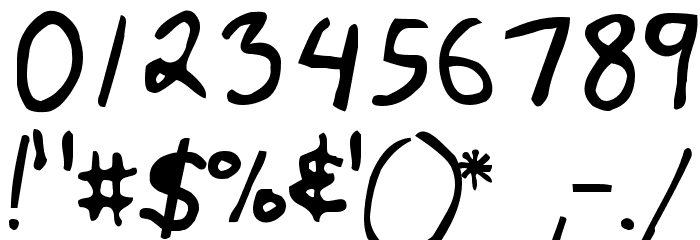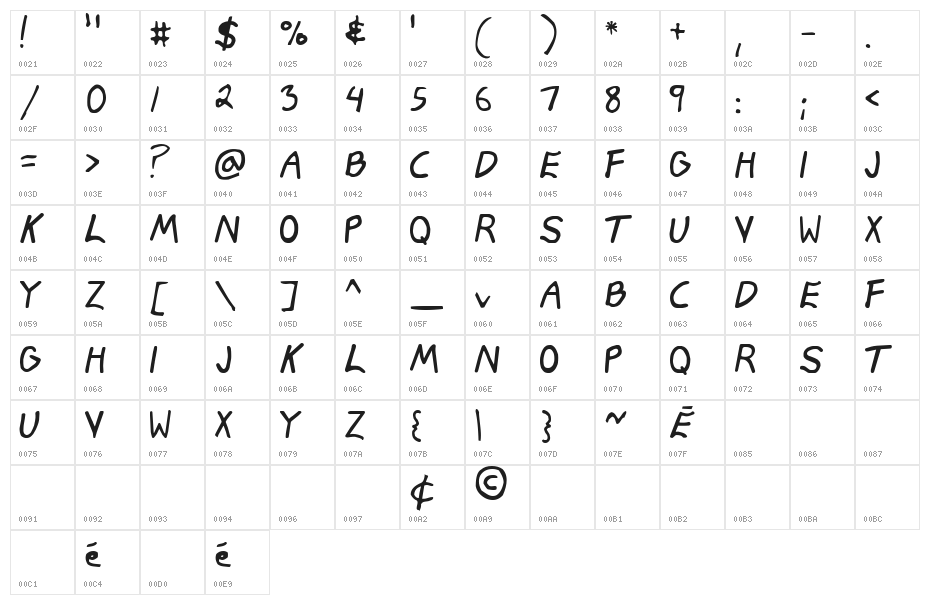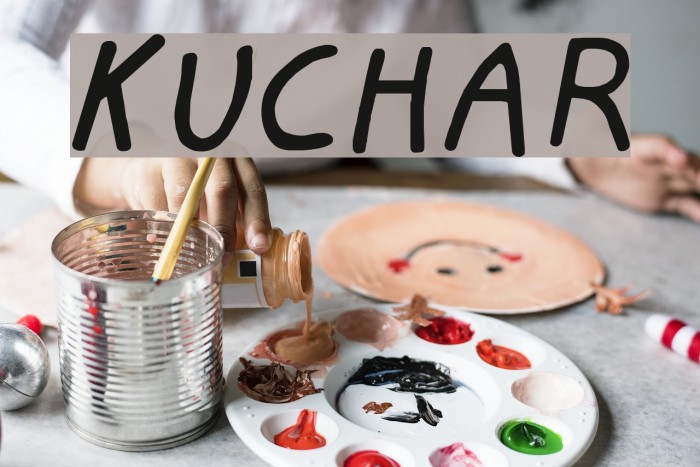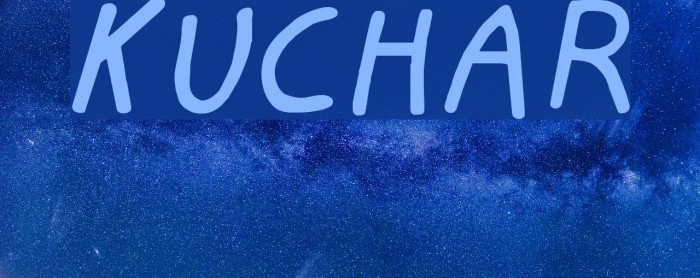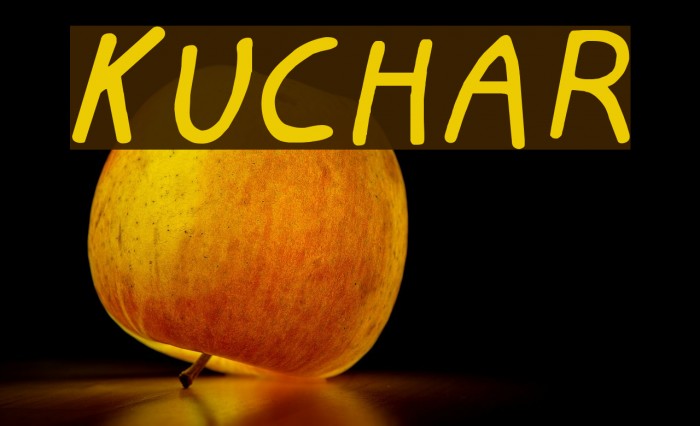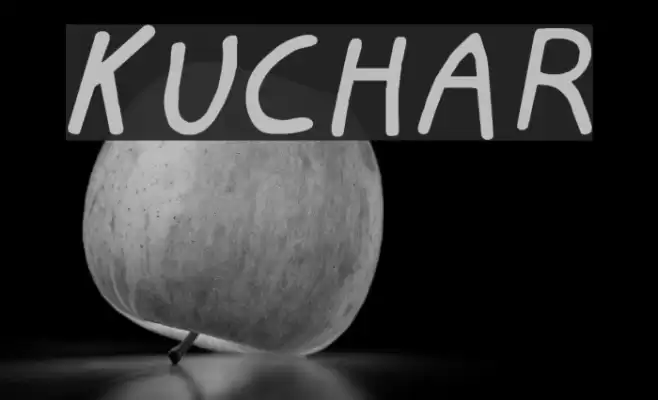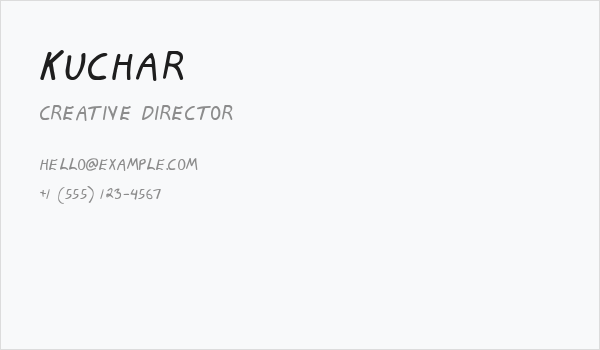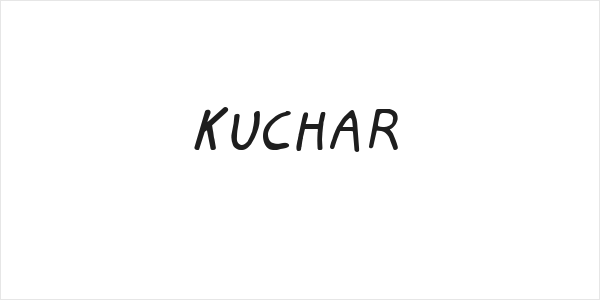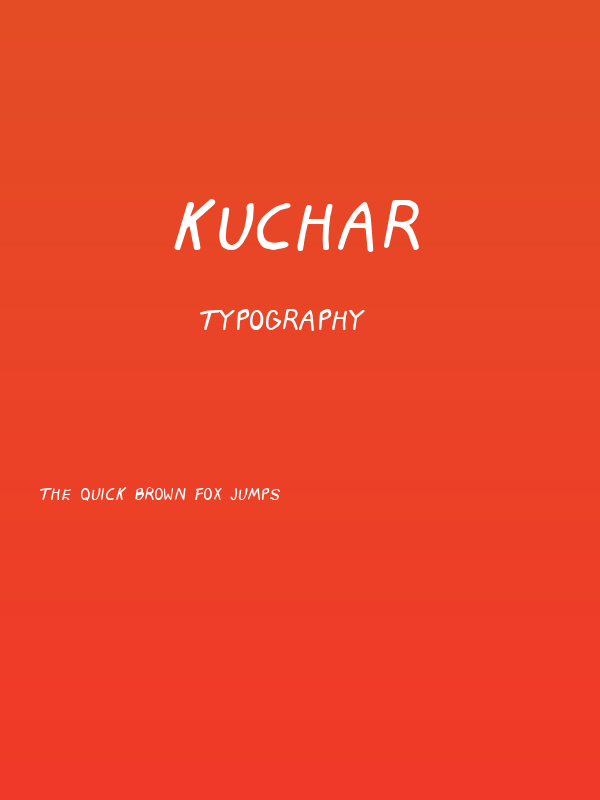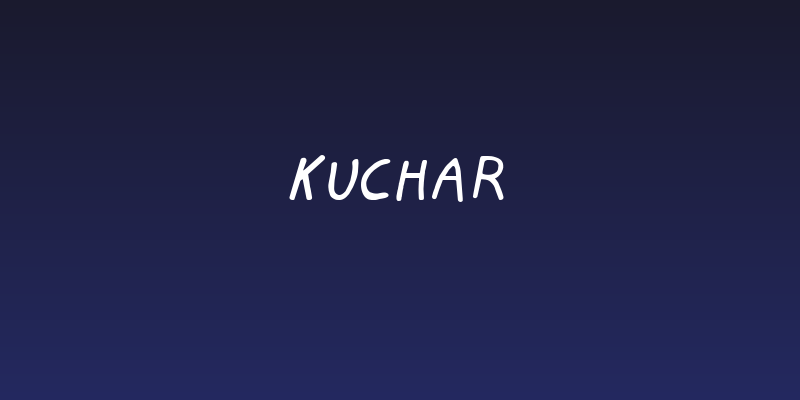
KUCHAR Font
KUCHAR Description
This font features a playful and casual handwritten style, characterized by its uneven strokes and slightly tilted letters. The uppercase and lowercase letters maintain a consistent flow, giving it an informal and friendly appearance. The numbers and special characters follow the same whimsical style, making it suitable for creative and fun projects. The strokes are moderately thick, providing good readability while retaining a personal touch. This font is ideal for projects that aim to convey warmth and approachability.
| Proposed Projects | Great for greeting cards, children's books, casual invitations, and playful branding. |